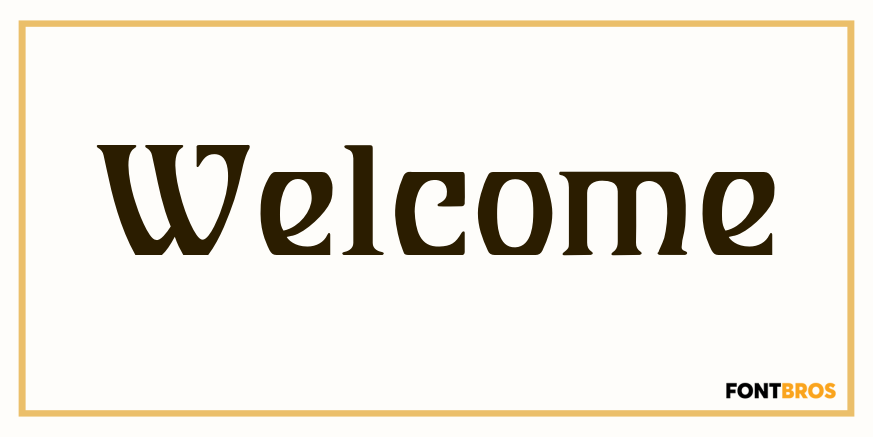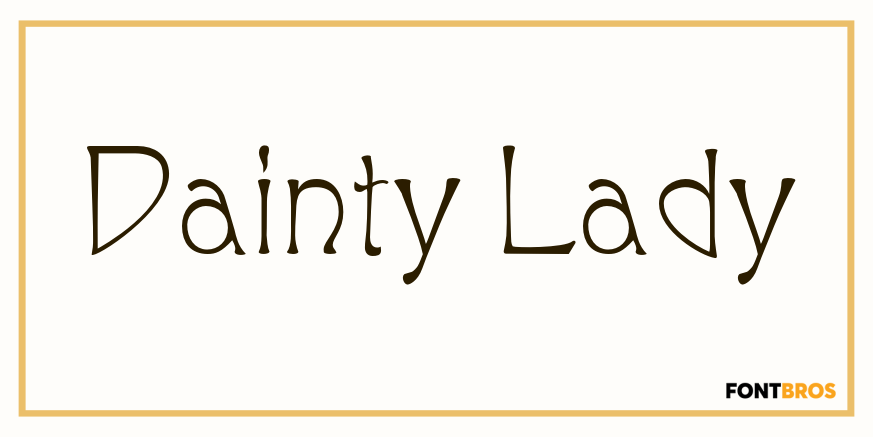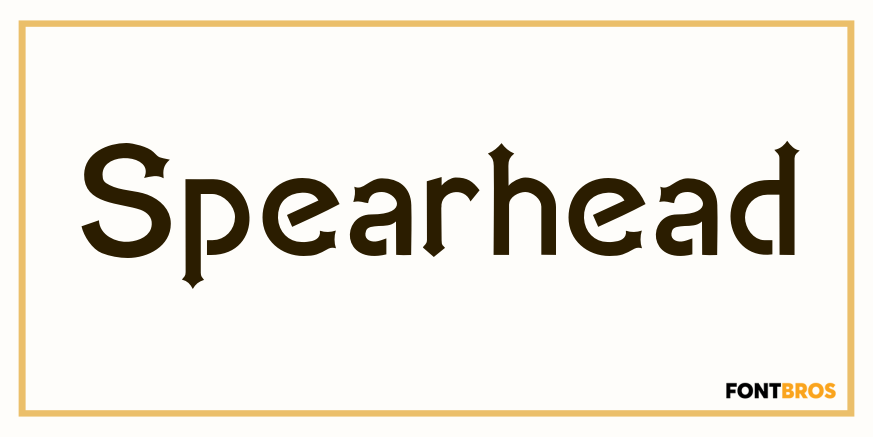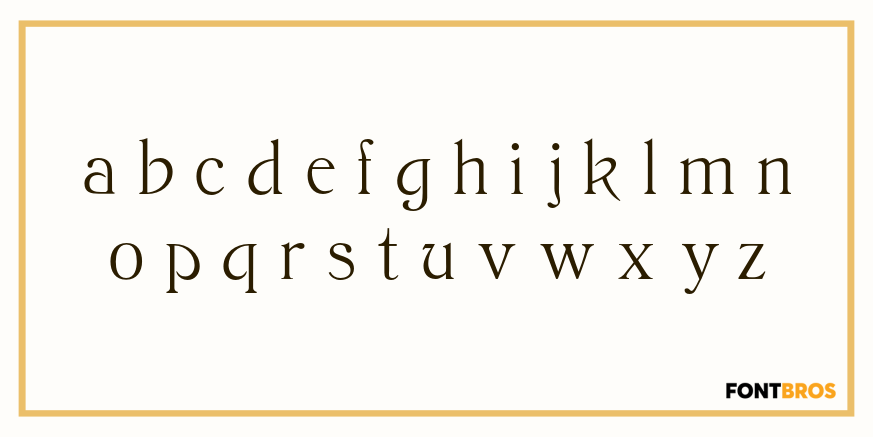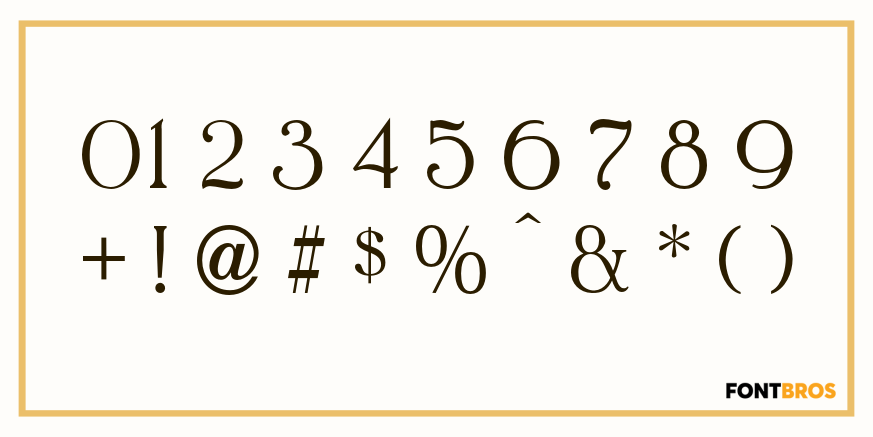
Vienna
Font Family by Solotype
This early 1900s type is from the German foundry of Schelter & Gieseke, and is typical of early twentieth century design.
As usual, we have added all the modern necessities, such as monetary signs for the major commercial countries.